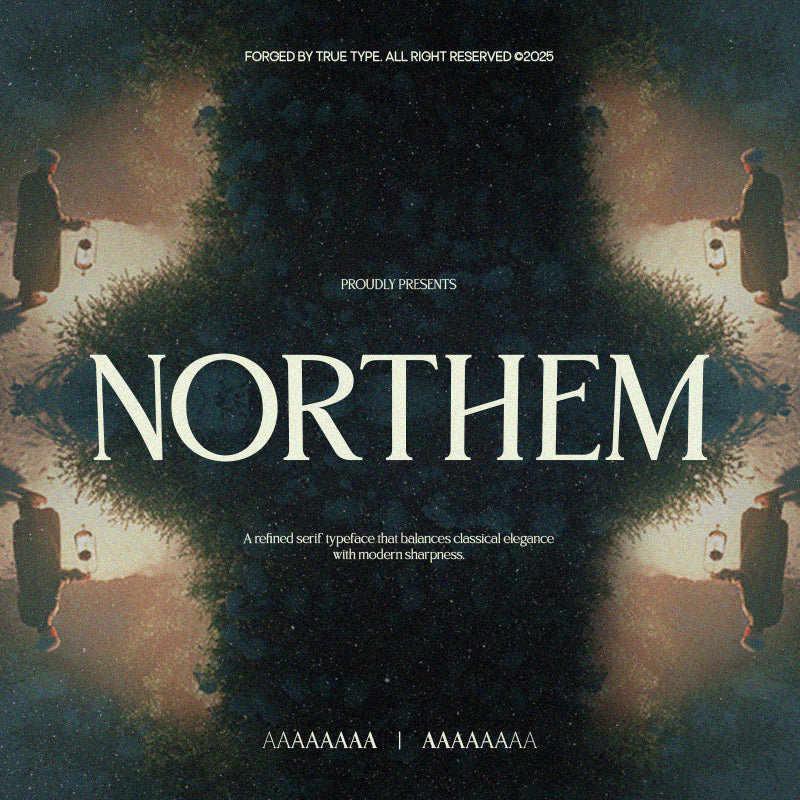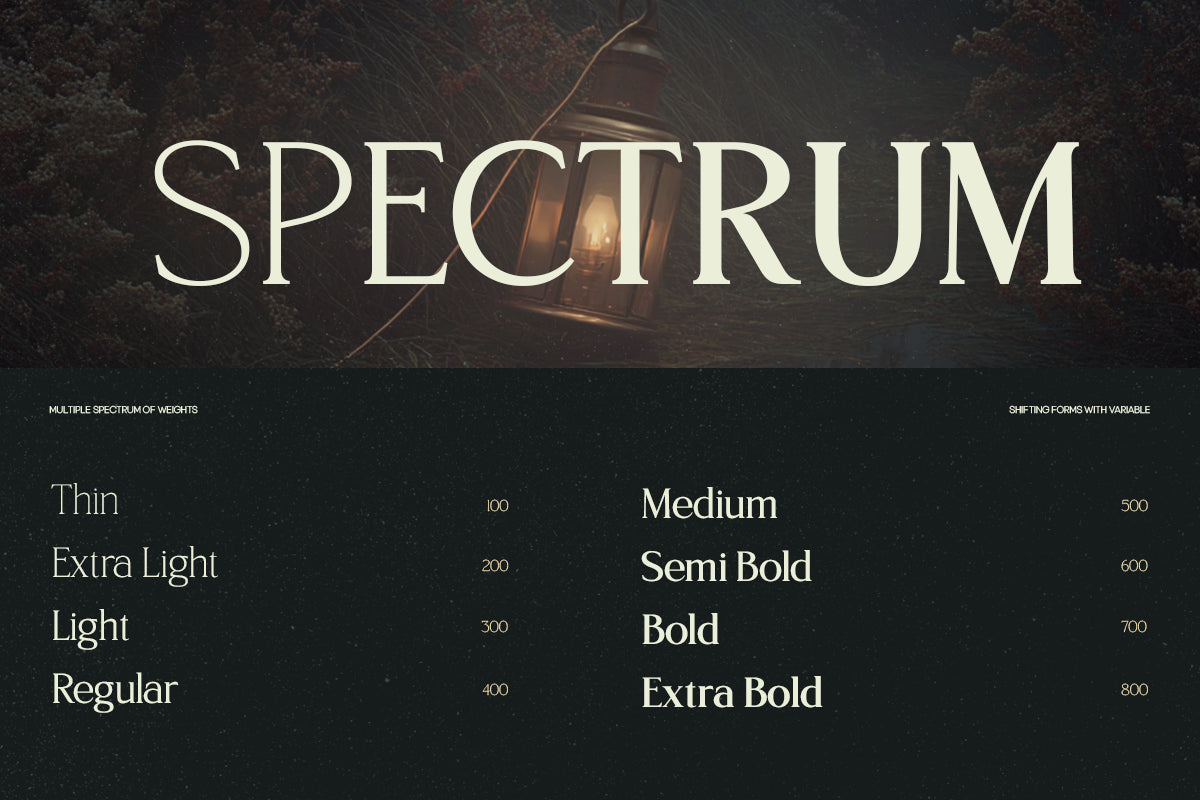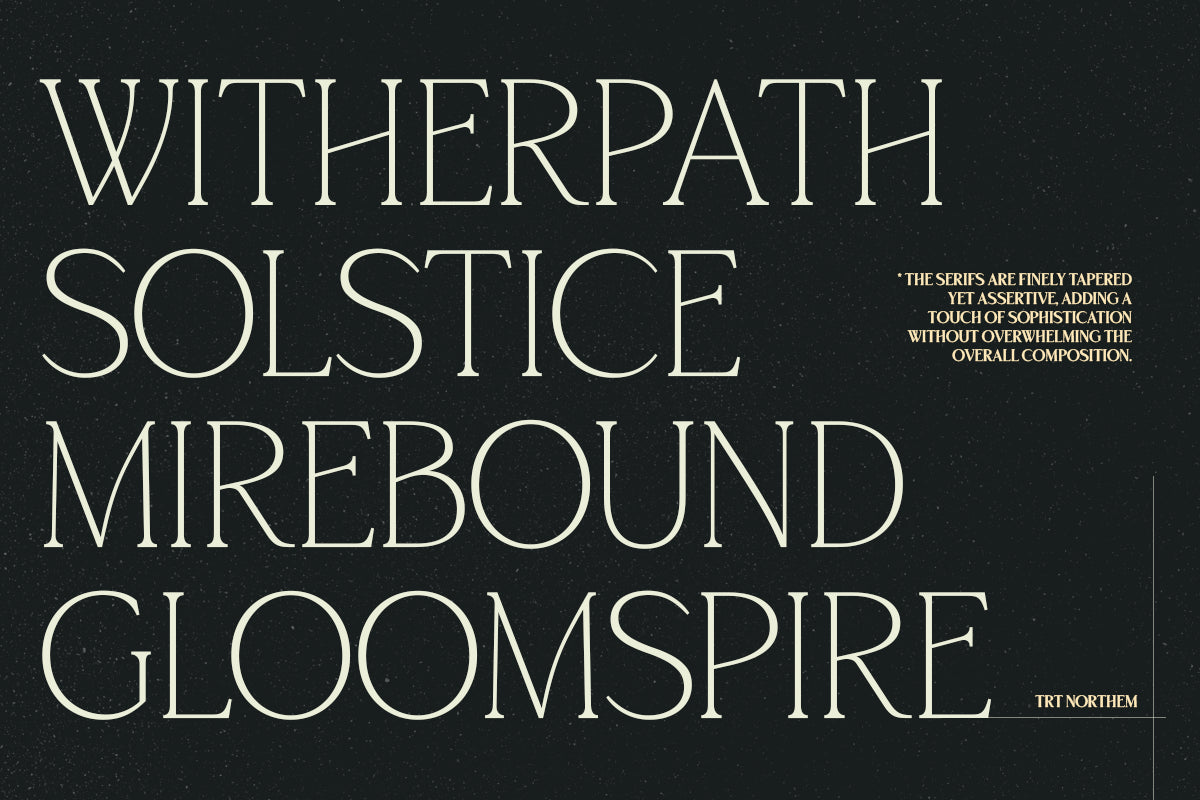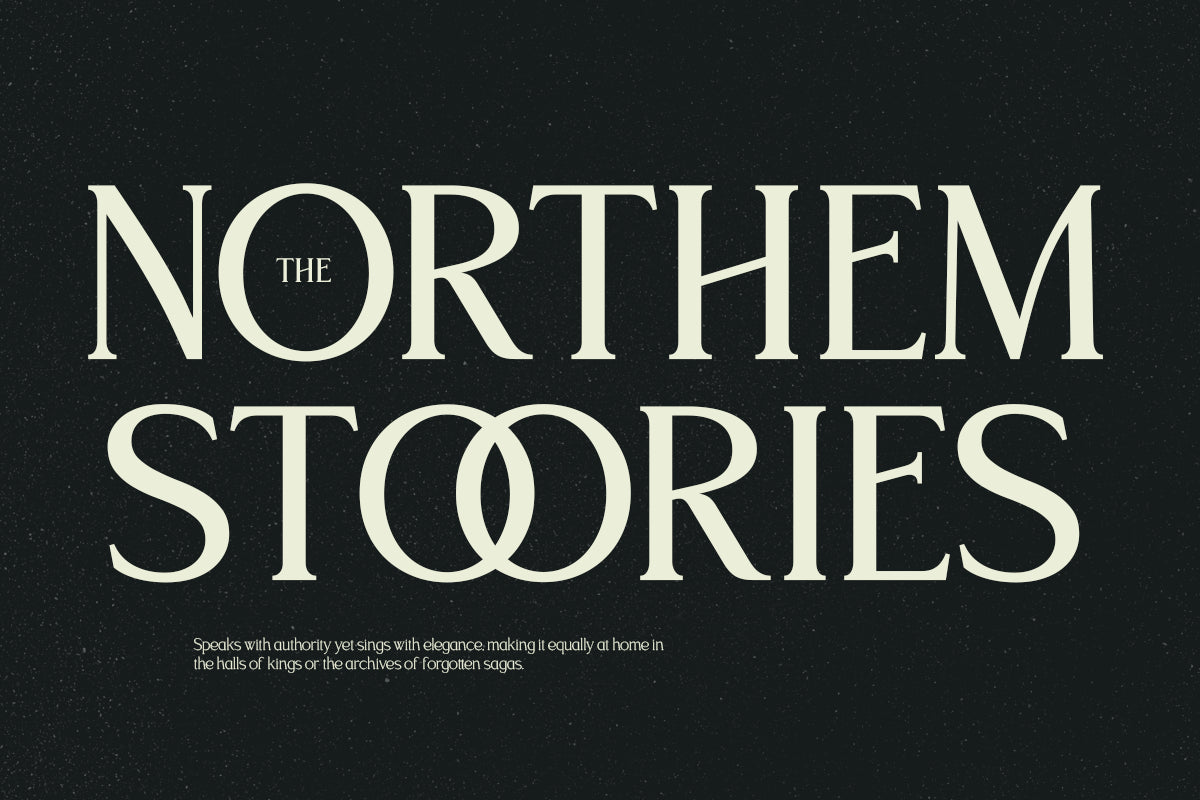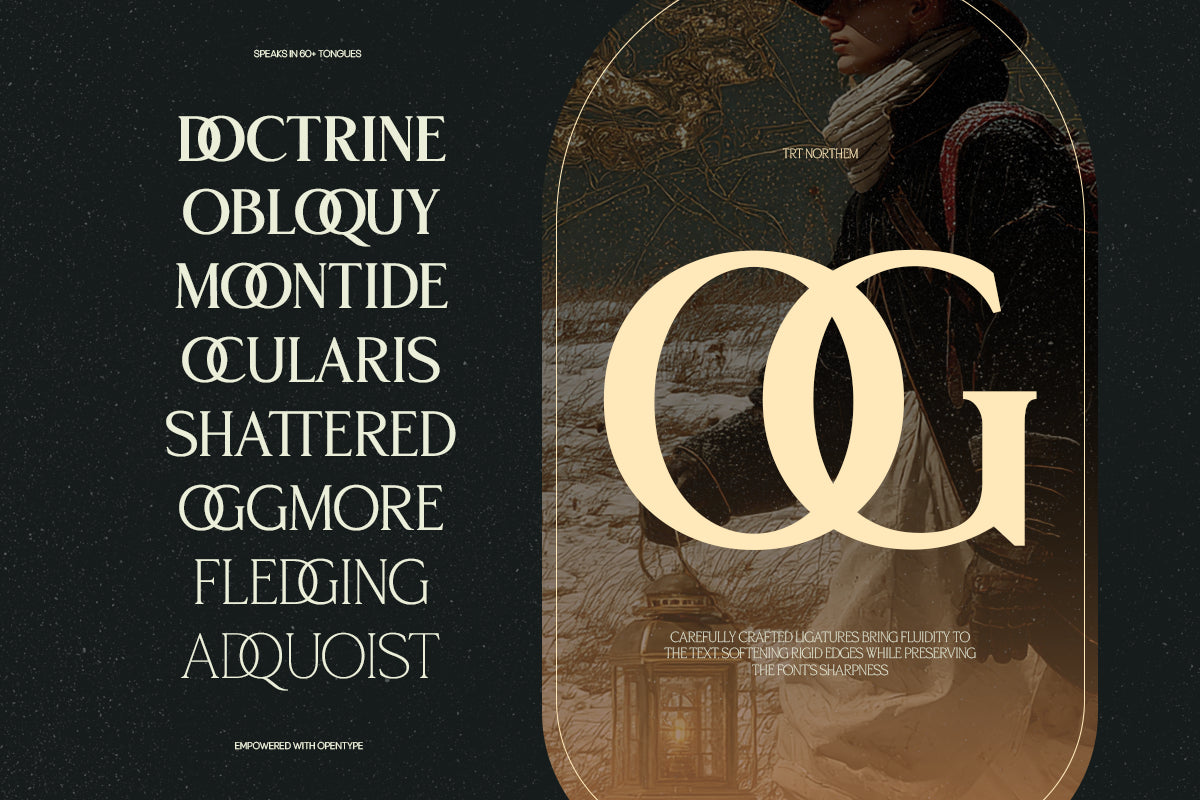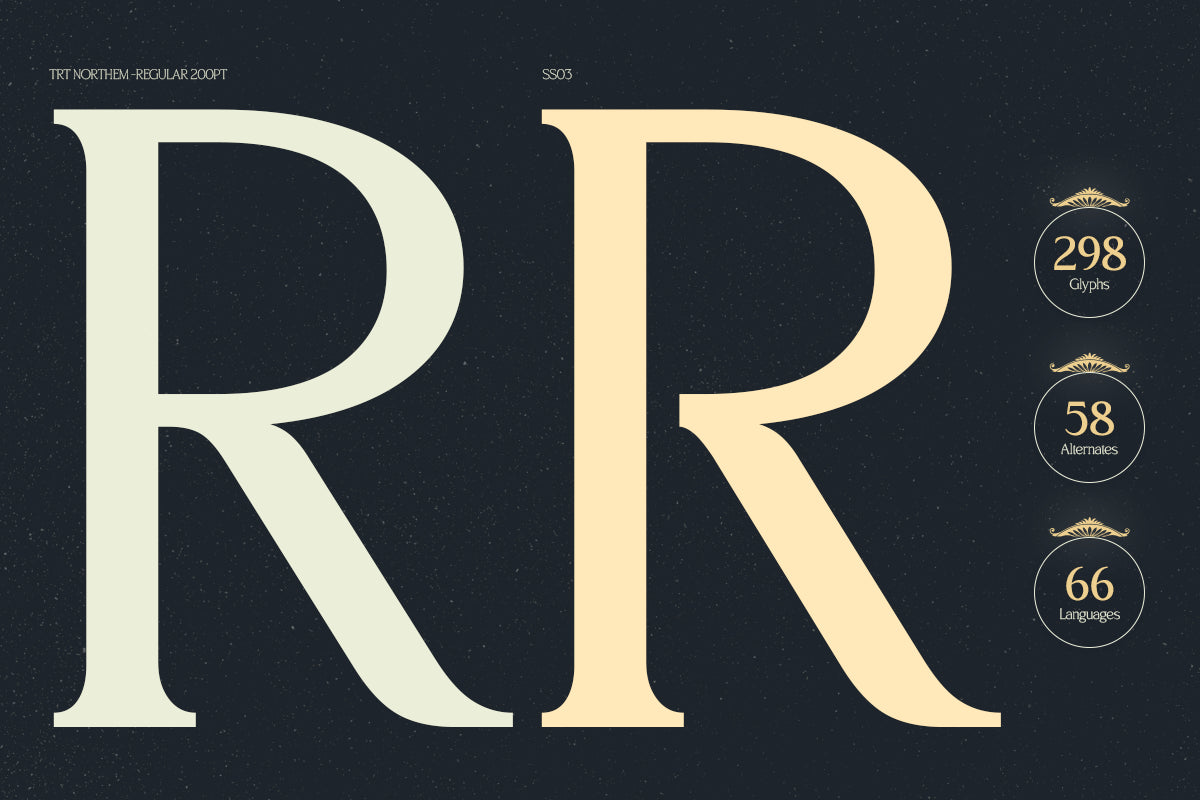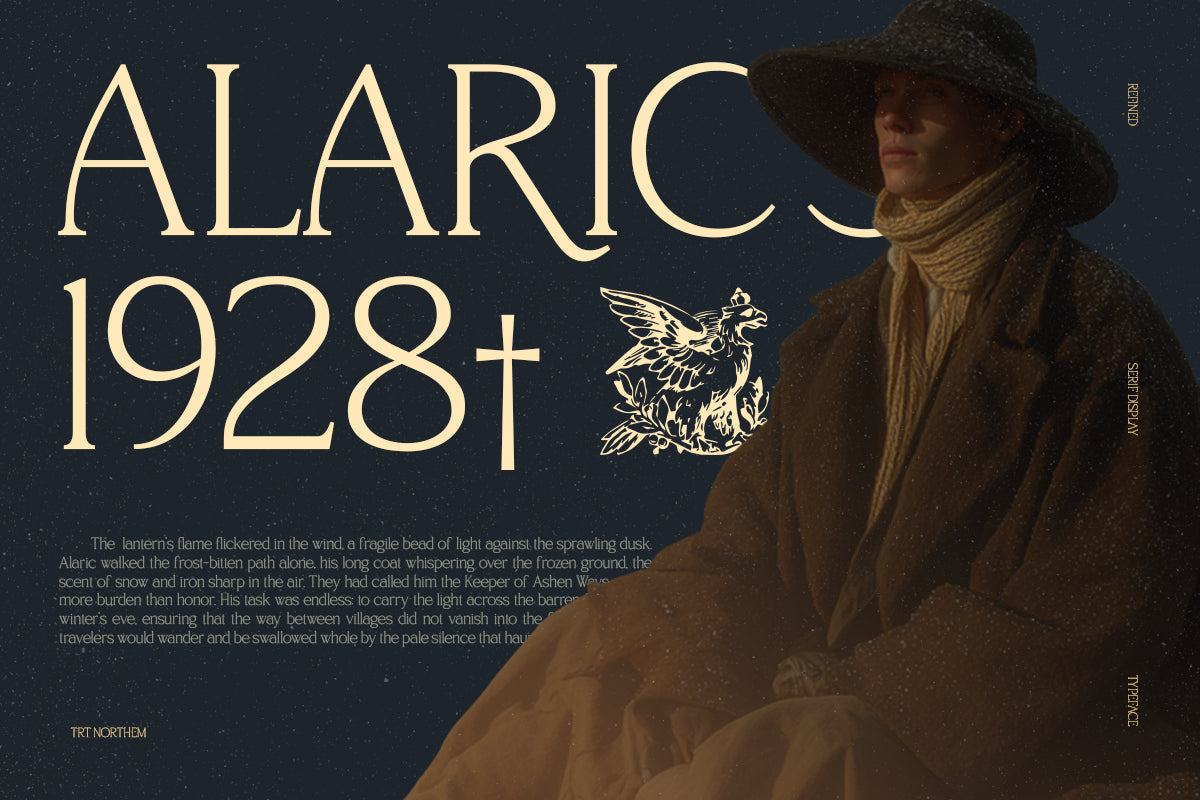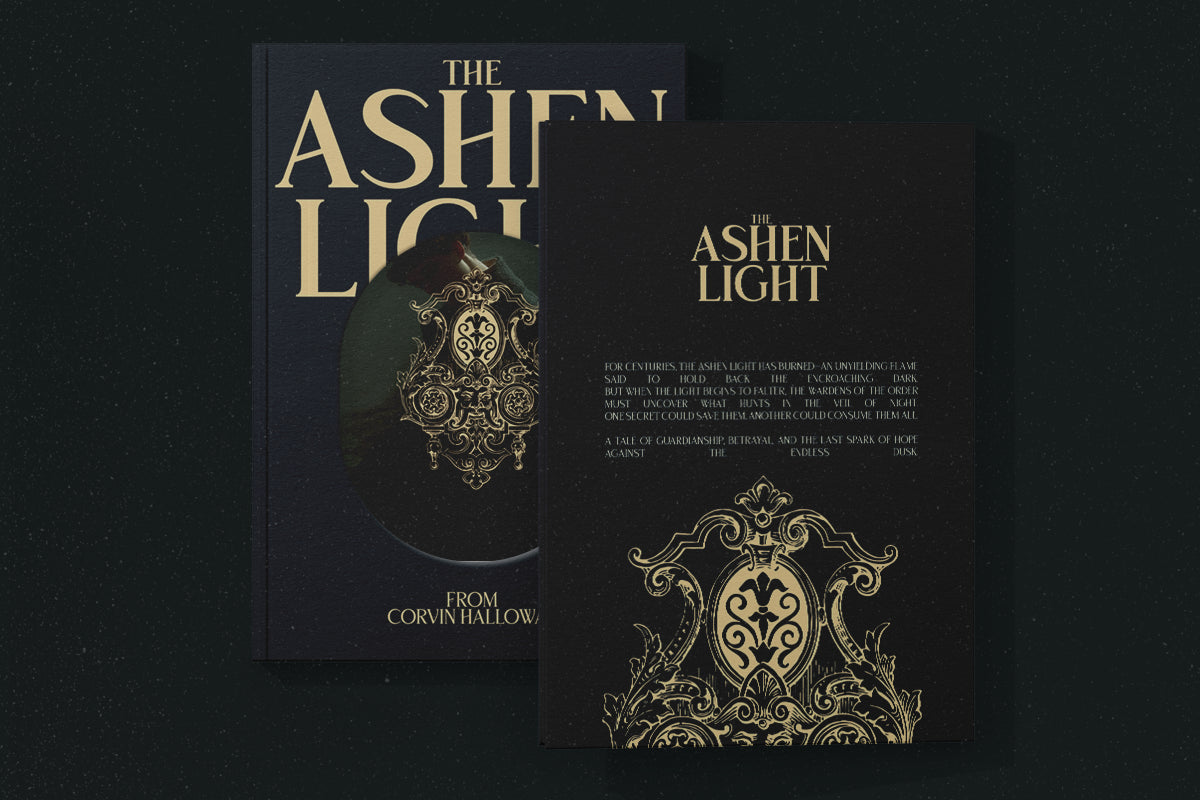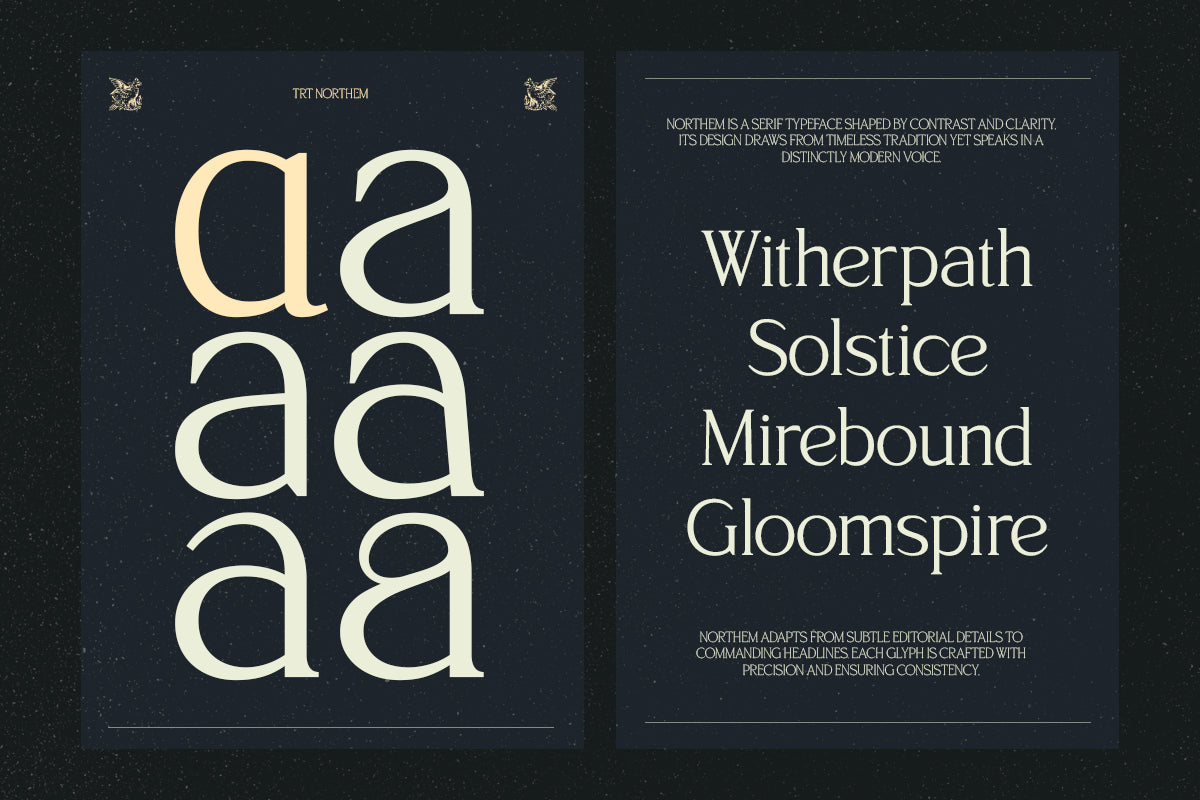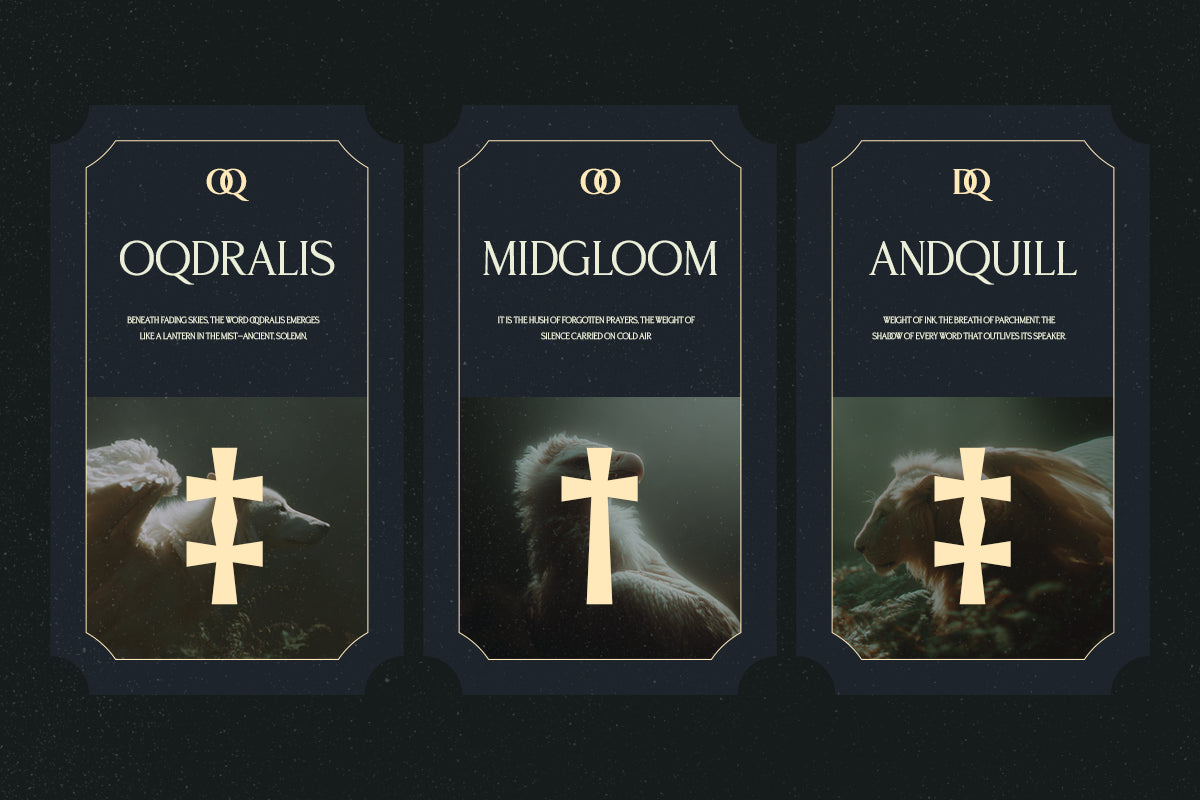
TRT Northem – Elegant Serif Font Family
TRT Northem is an elegant serif font family designed with refined proportions and smooth contrast, combining classic charm with modern functionality. It offers a versatile range suitable for both display and text sizes, featuring carefully tuned details for enhanced readability and a harmonious balance between structure and softness.